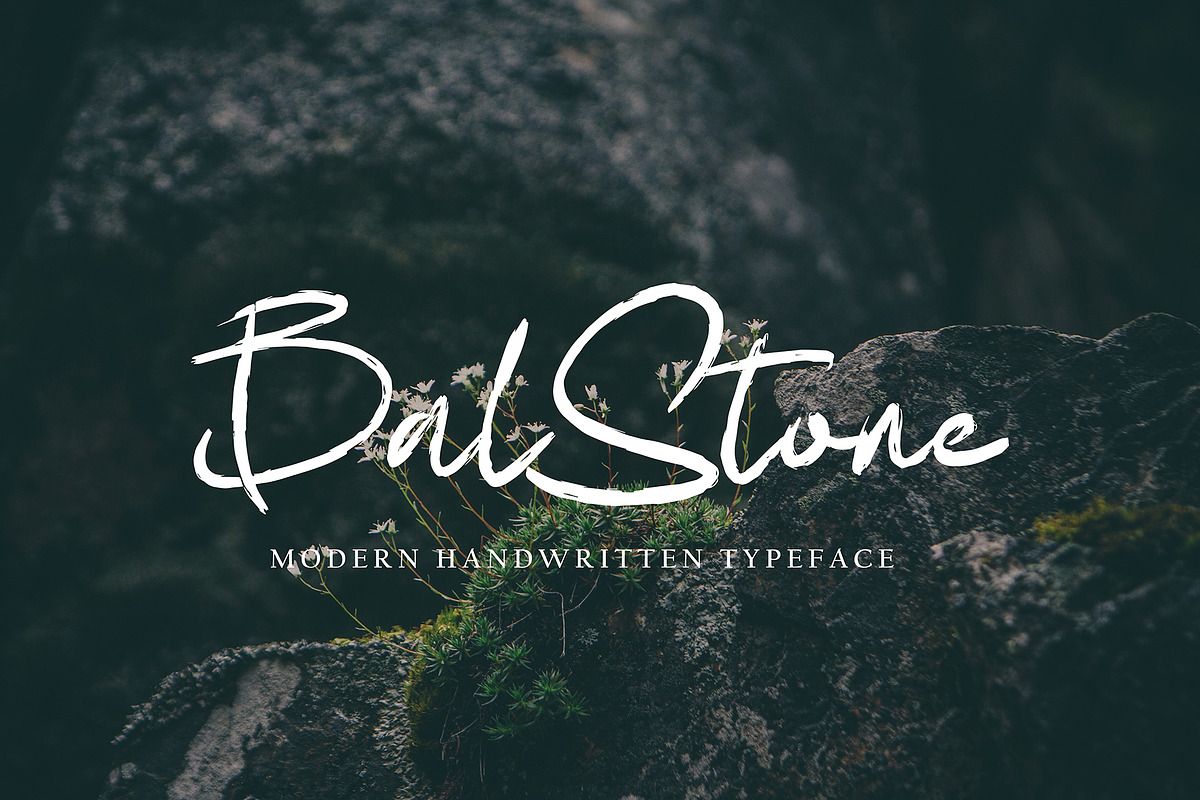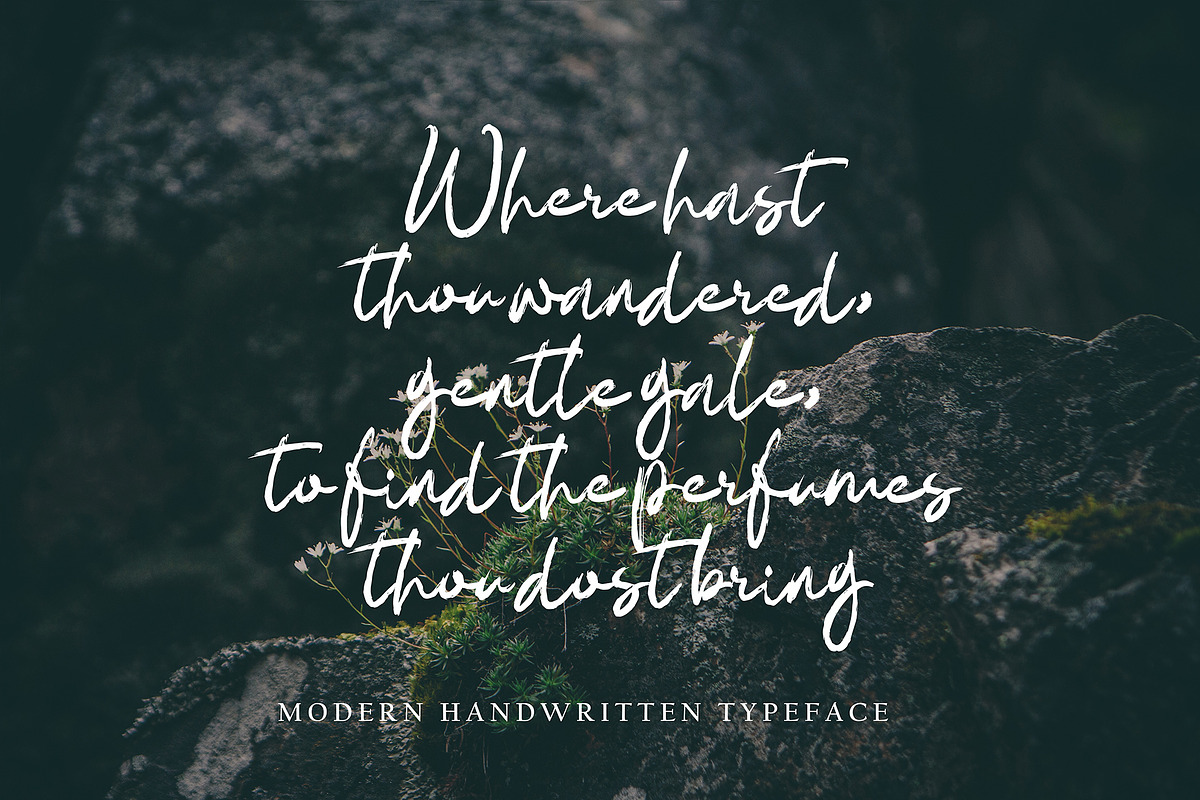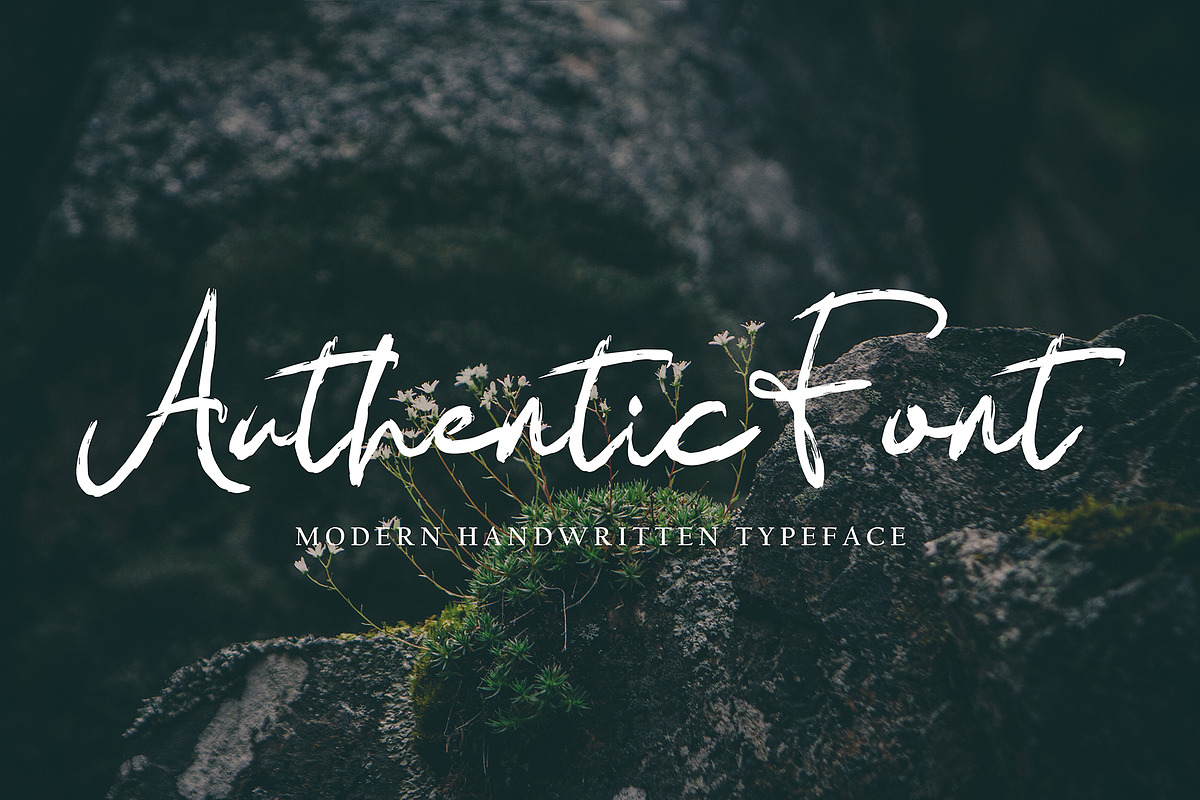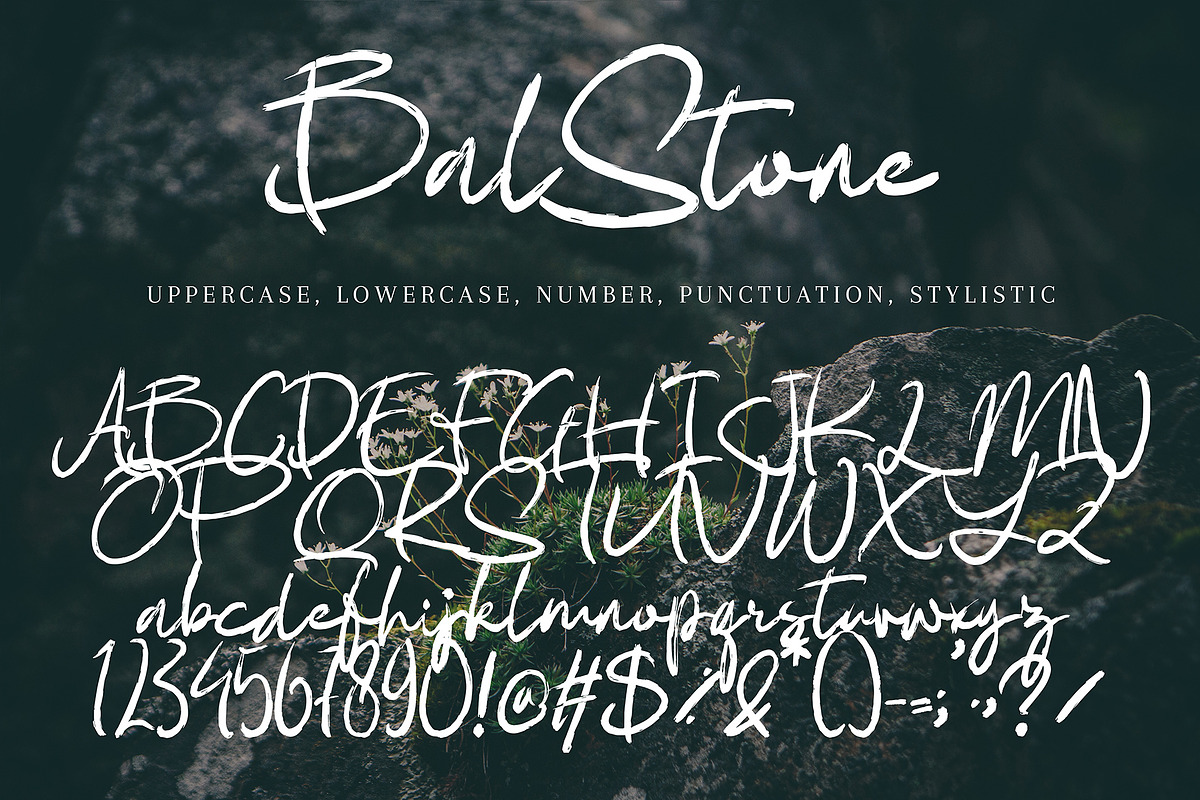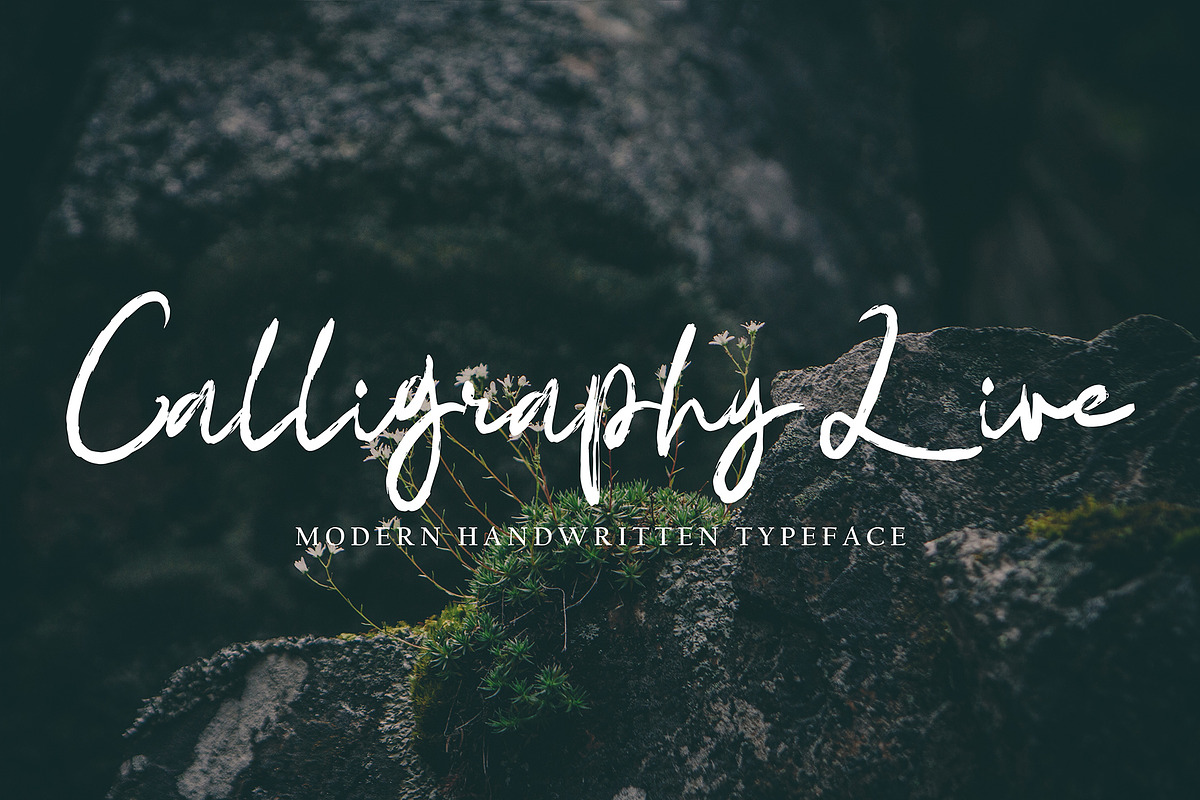
BalStone
BalStone with new style, this font will perfect for many different project ex: quotes, logo, blog header, poster, banding, letter, invitation, stationery, etc...